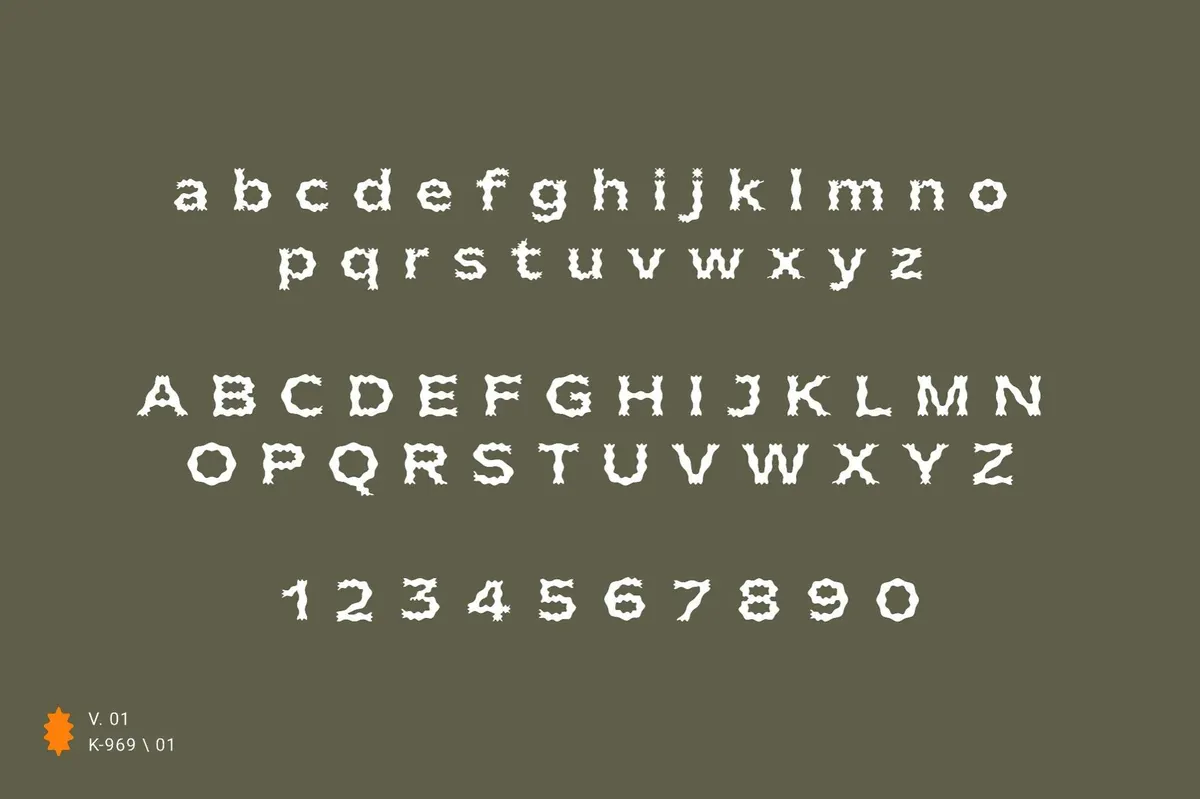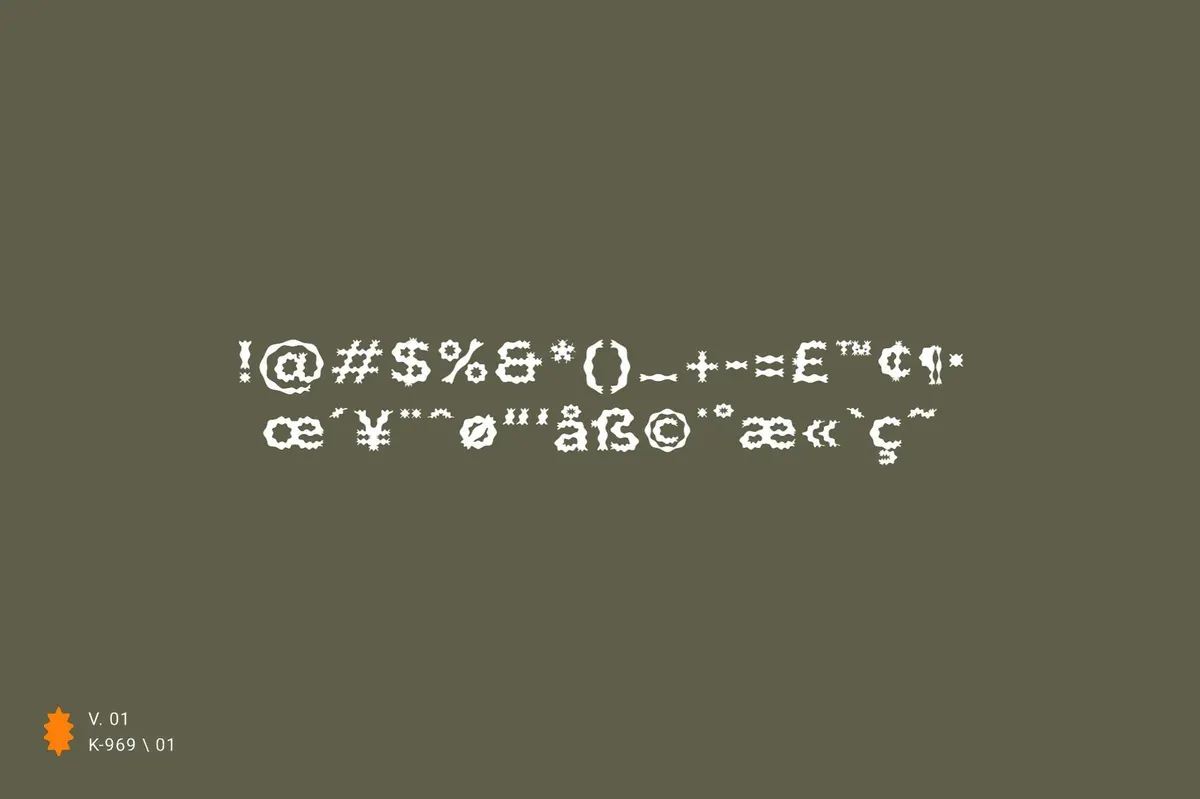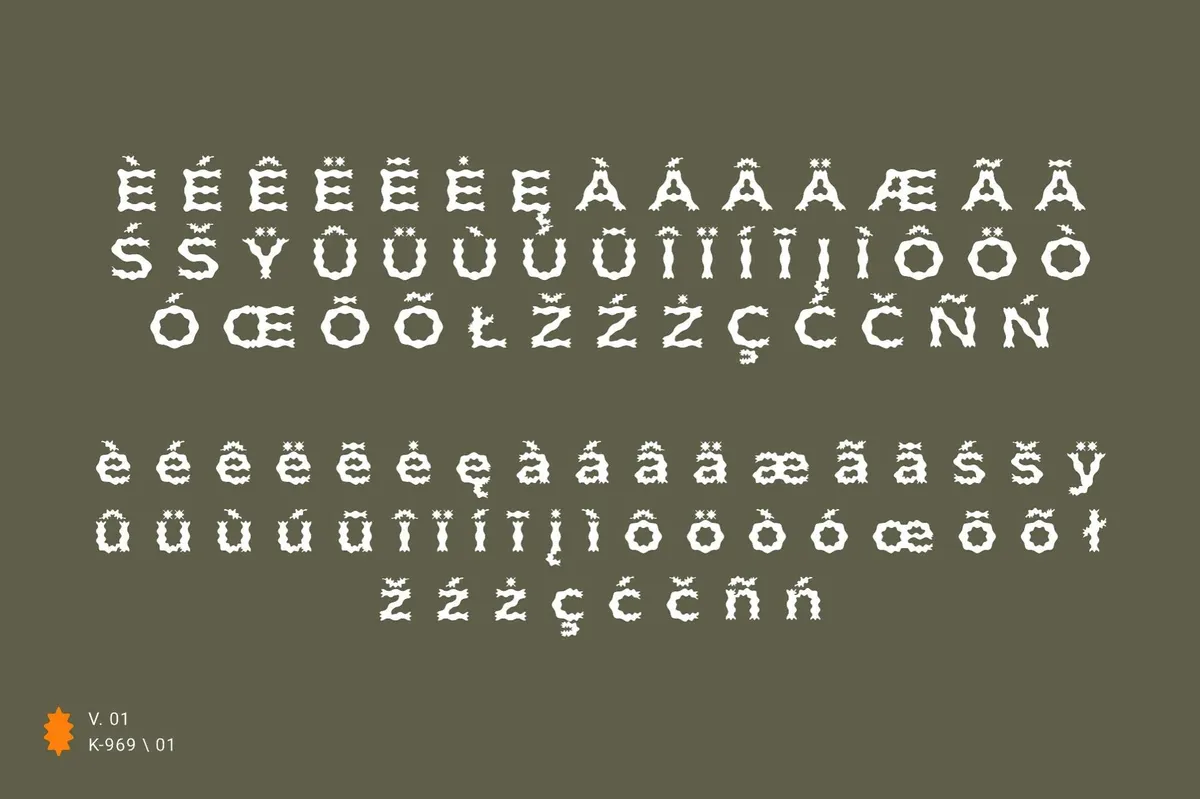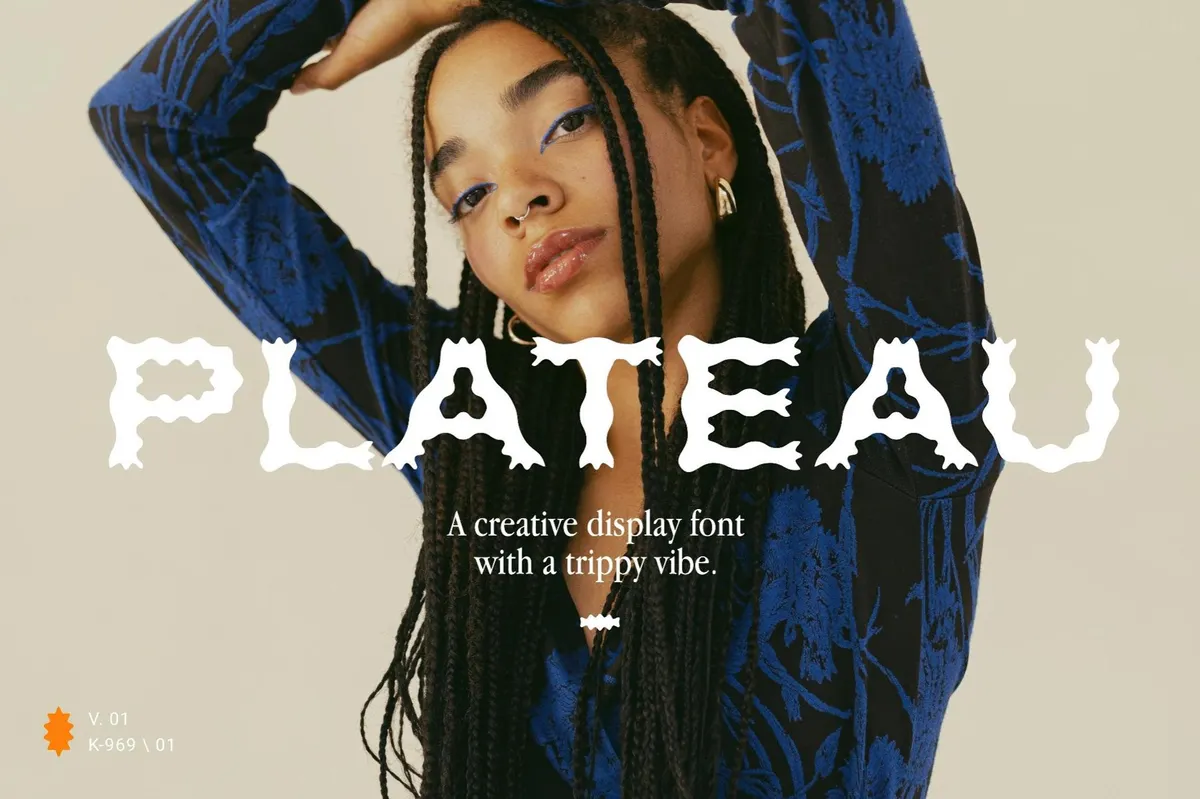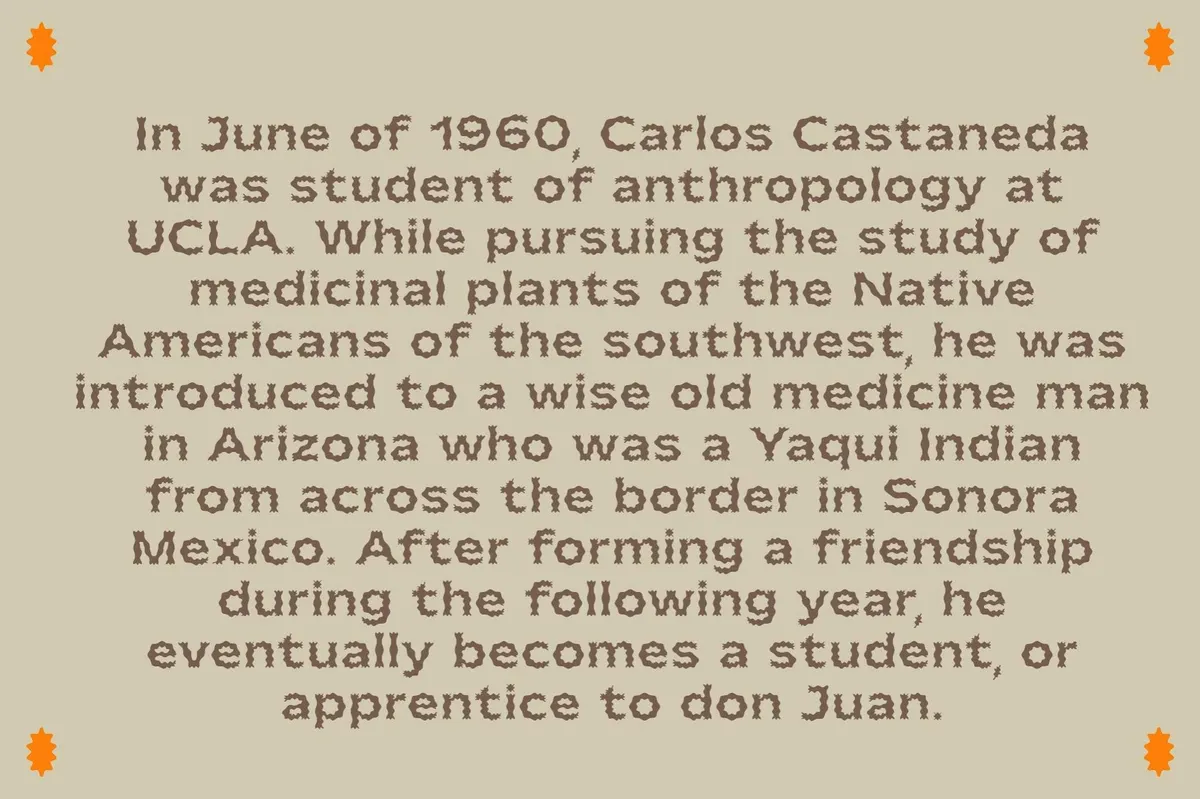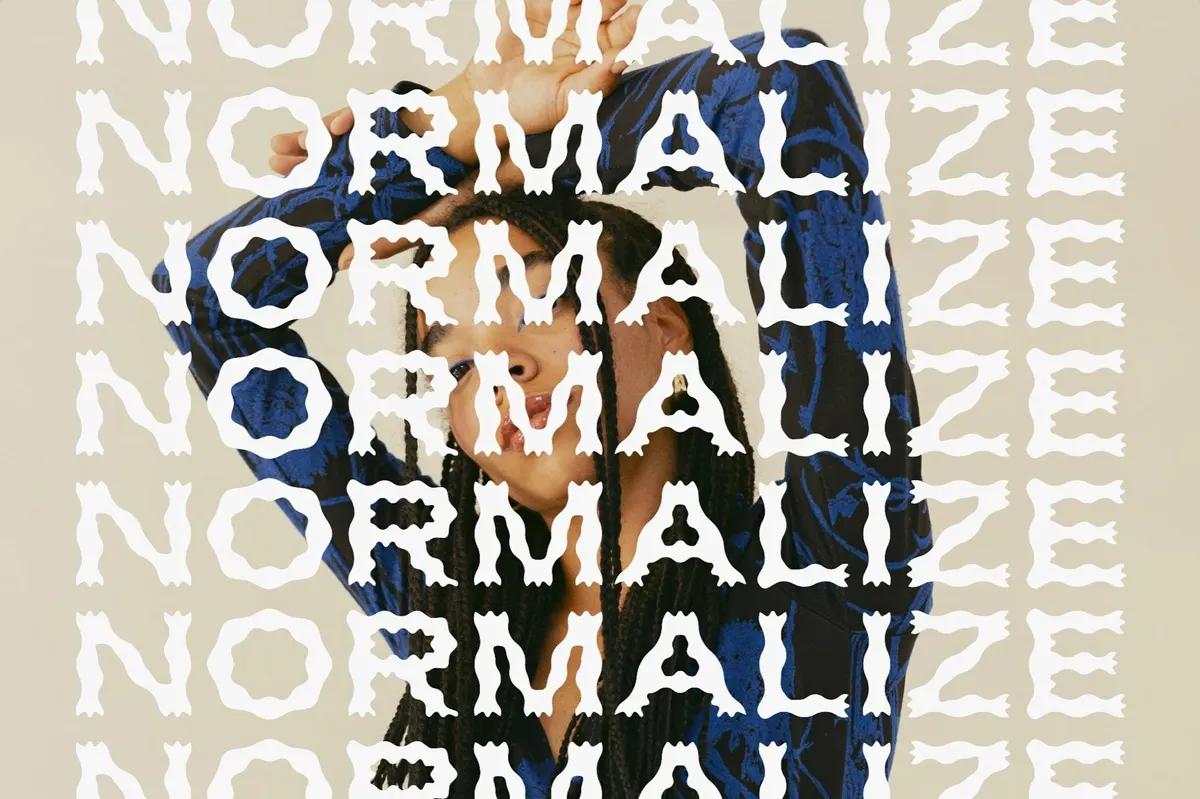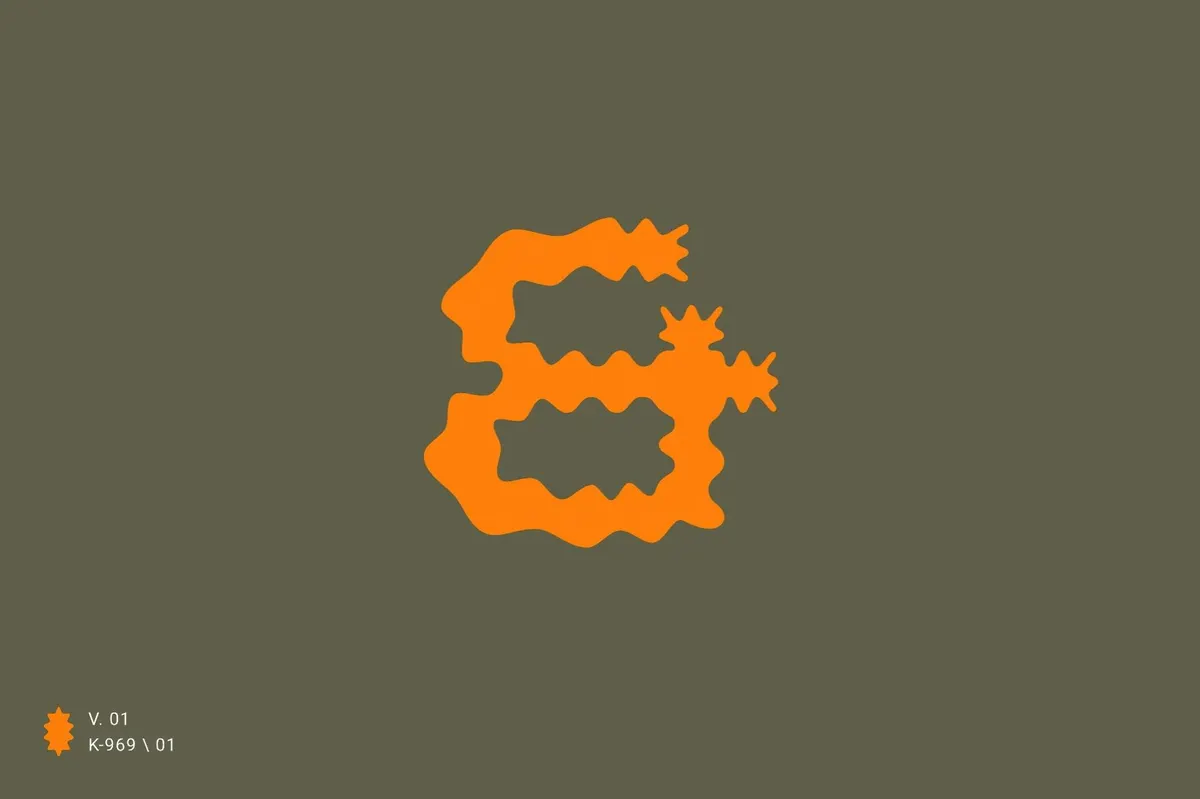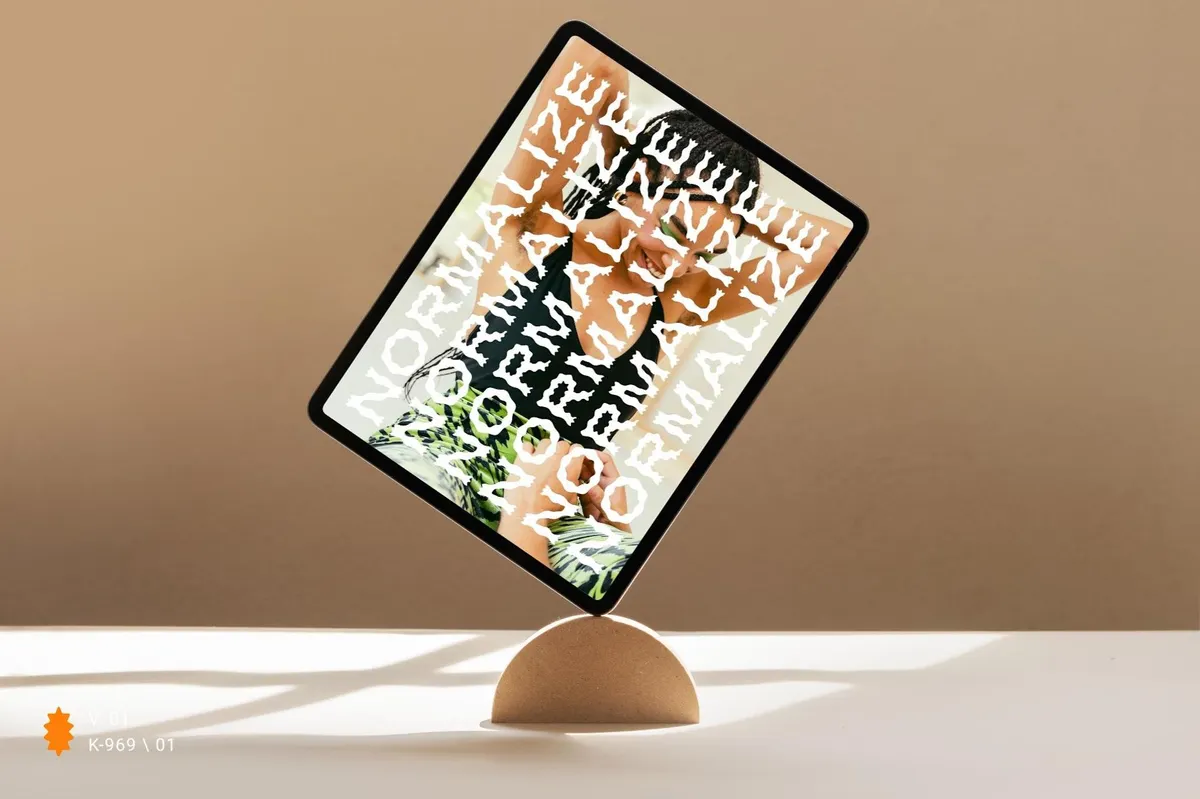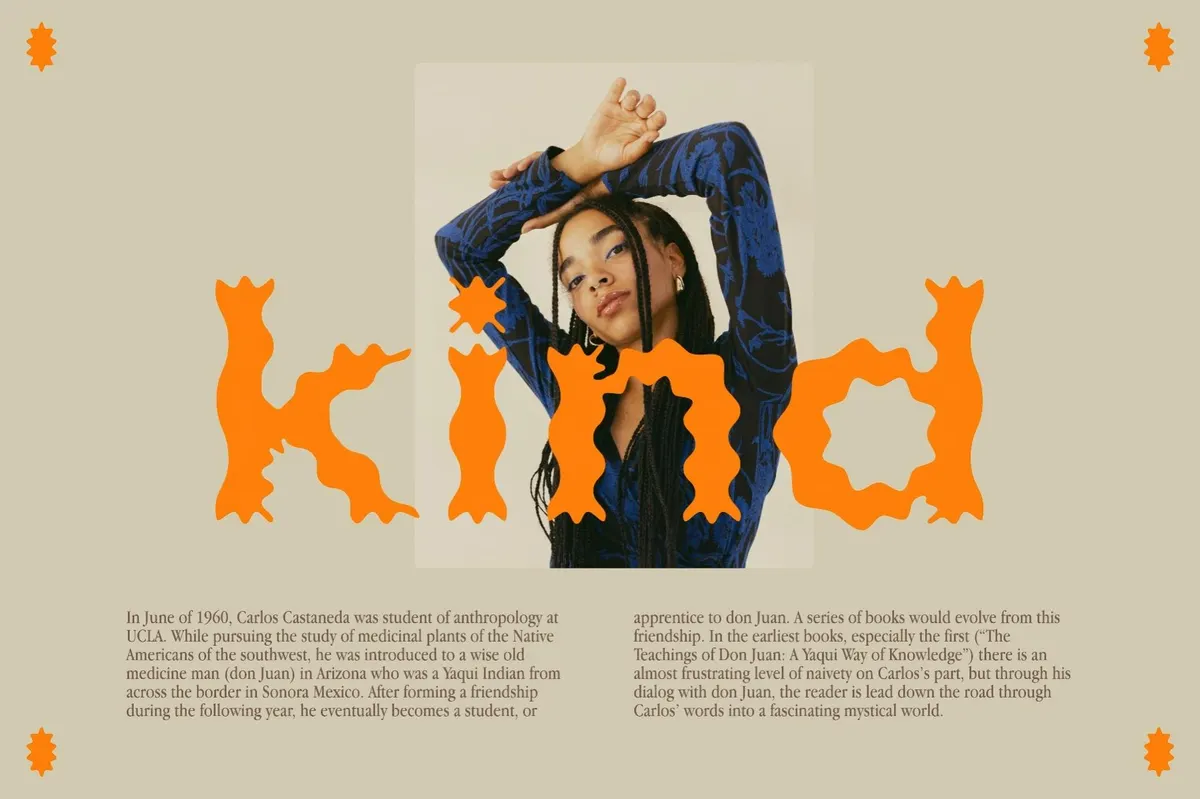
Plateau Display Font
Plateau
Plateau is a font that wraps visual hallucination in letterform. It’s retro nostalgia colliding with a futuristic trip. Dripping with psychedelic energy and a free-spirited edge, its bold, undulating shapes feel like they’ve been pulled straight from a retro gig poster or a 1960s counterculture zine. Plateau brings an electrifying sense of motion to any project — be it branding, packaging, album art, or editorial layouts. Despite its trippy aesthetic, it remains effortlessly legible and versatile, balancing decorative swirls with solid readability. The full set of glyphs includes uppercase, lowercase, numerals, and punctuation, making it as functional as it is rebellious. It also provides **multilingual support. **